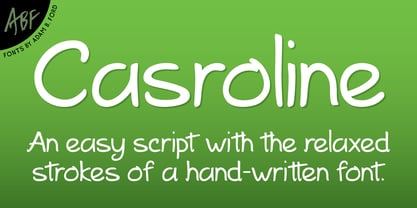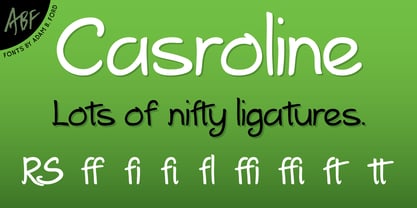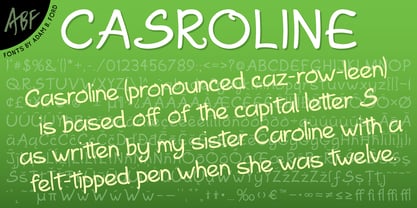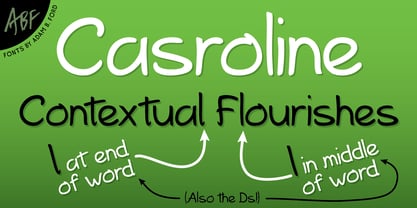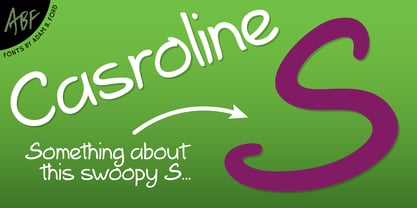
Casroline
by Adam B. Ford
The Casroline Font Family was designed by Adam B. Ford and published by Adam B. Ford. Casroline contains 1 styles. More about this family
Casroline (pronounced CAZ-ROW-LEEN) is a relaxed script with a hand-written feel. It is based off of the capital letter S as written by my sister Caroline with a felt-tipped pen when she was twelve. The sway of it was very pleasing and i tried to give the rest of the font the same feel, basing other letters off of her script.
About Adam B. Ford
Adam B. Ford began designing with Bézier curves in the late 1980s. He designed his first fonts at the dawning of the 1990s, but never polished them to a finished state—using his creations in personal projects only. In 2021, he pulled a few old designs from the archives and began working on new fonts, finally bringing some of them to full character sets ready for sharing. He likes fonts with soft corners, whether with exacting metrics or a looser feel.